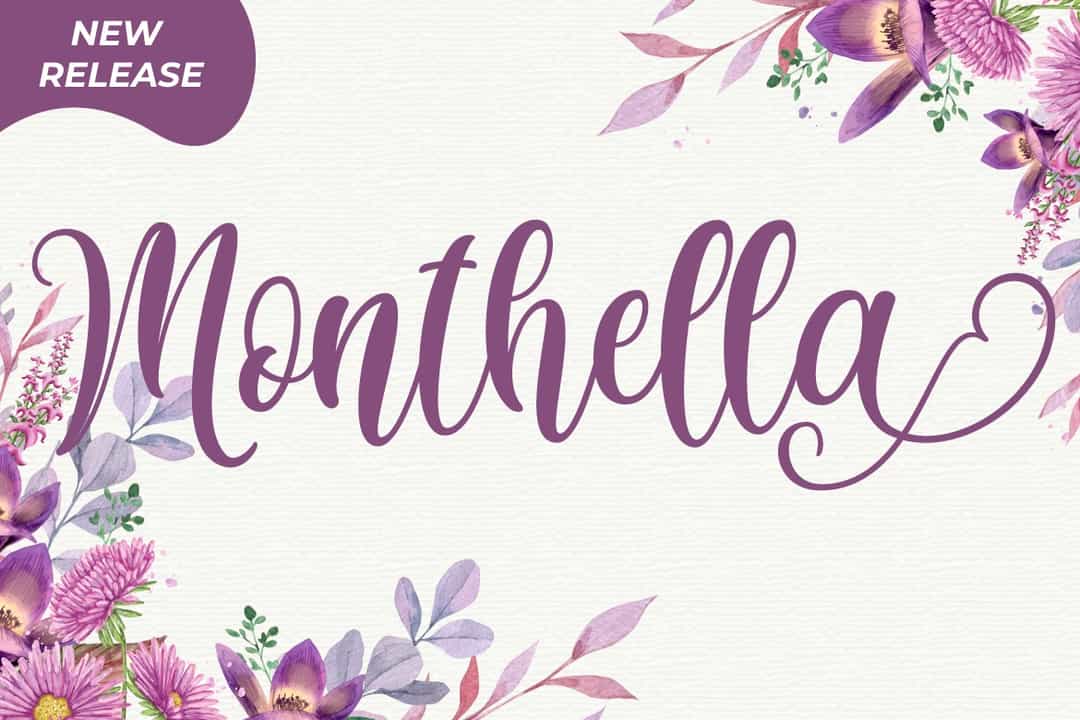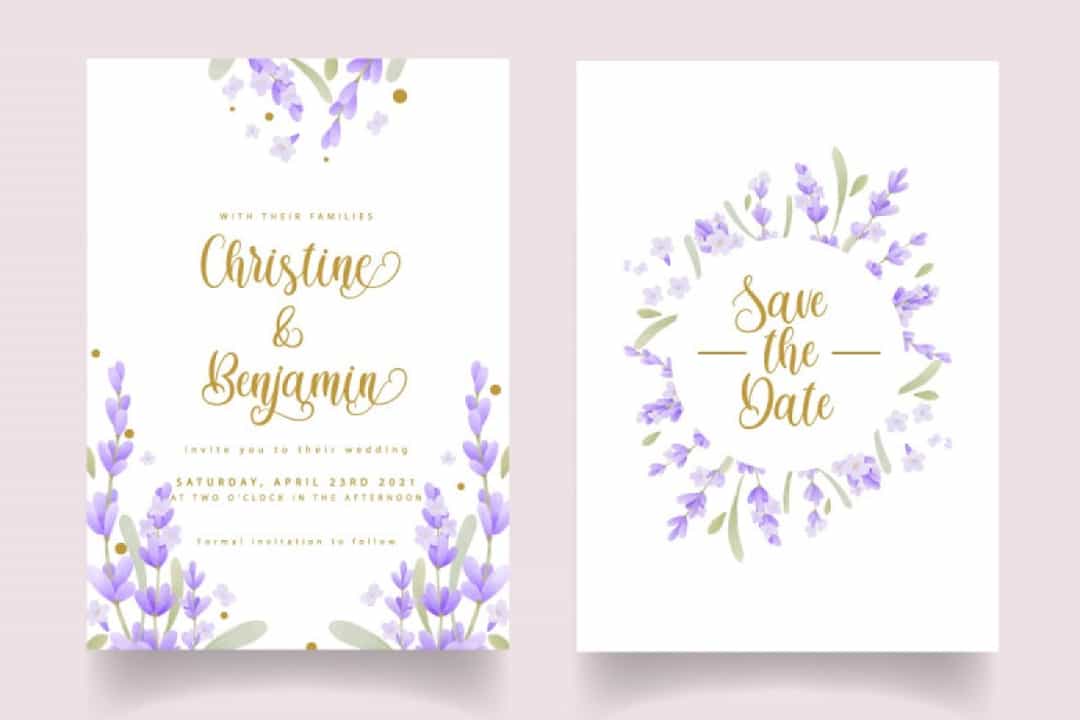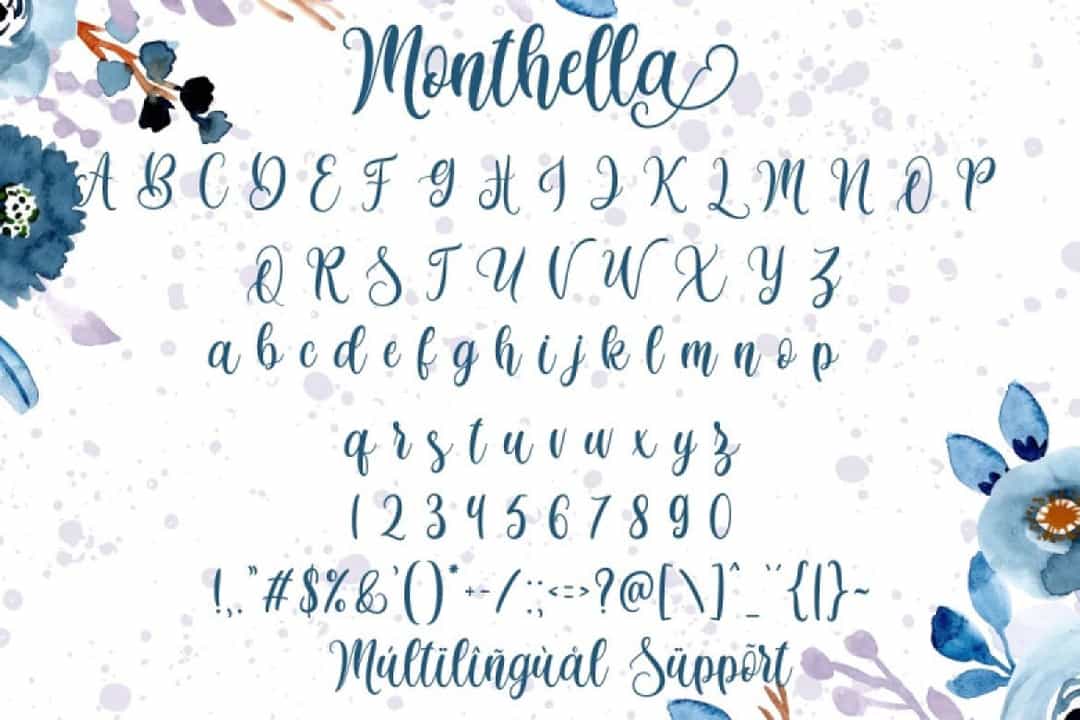
Discover Monthella Calligraphy Script Typeface, part of the Calligraphy Script collection—a versatile and unique font perfect for adding a personal touch to your projects. Download it for free and enjoy crafting designs with style, from invitations to social media posts. This font is available exclusively for personal use, giving you the freedom to create without limits. Unlock your creativity with Monthella Calligraphy Script Typeface today!
Monthella is a beautiful and elegant script font that is perfect for any design project and gives a very natural touch, this font is perfect for designing wedding invitations, stationery art, social media posts, and beautiful cards.